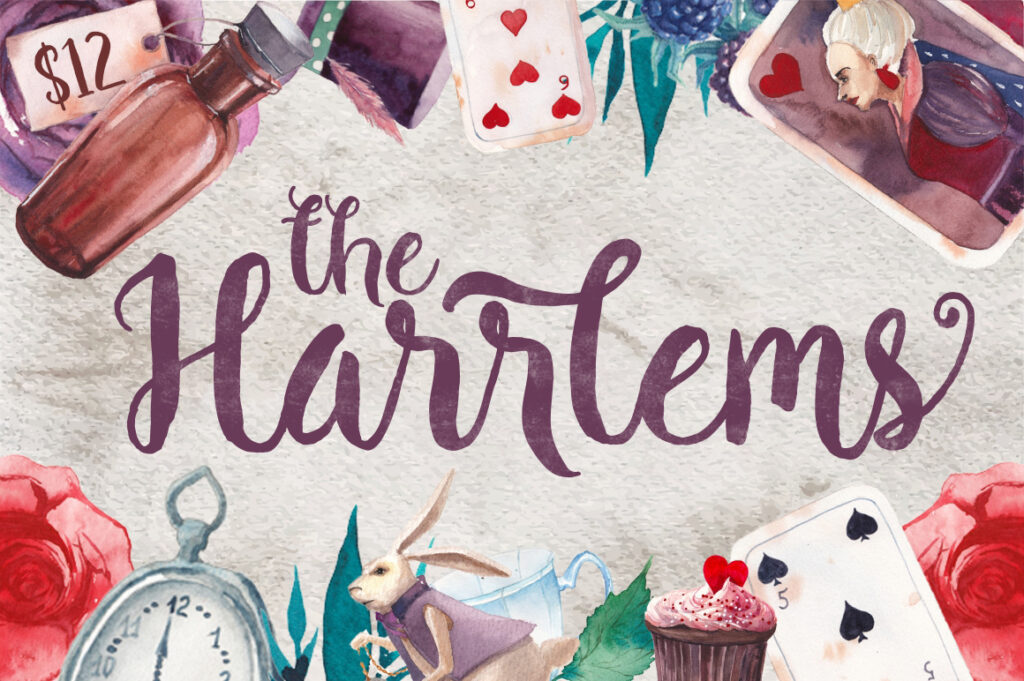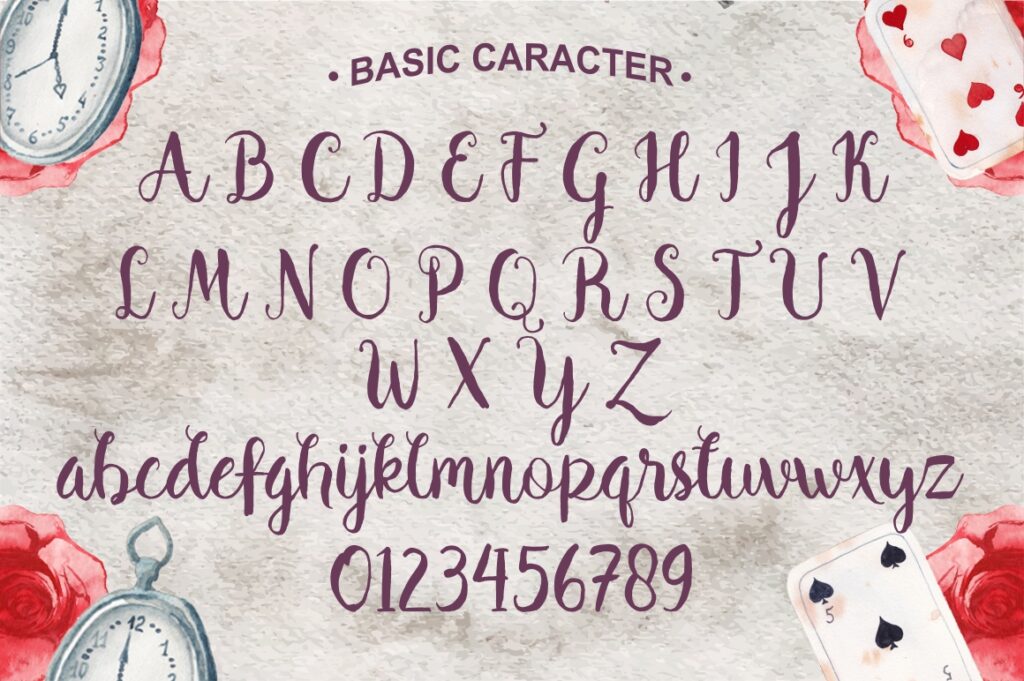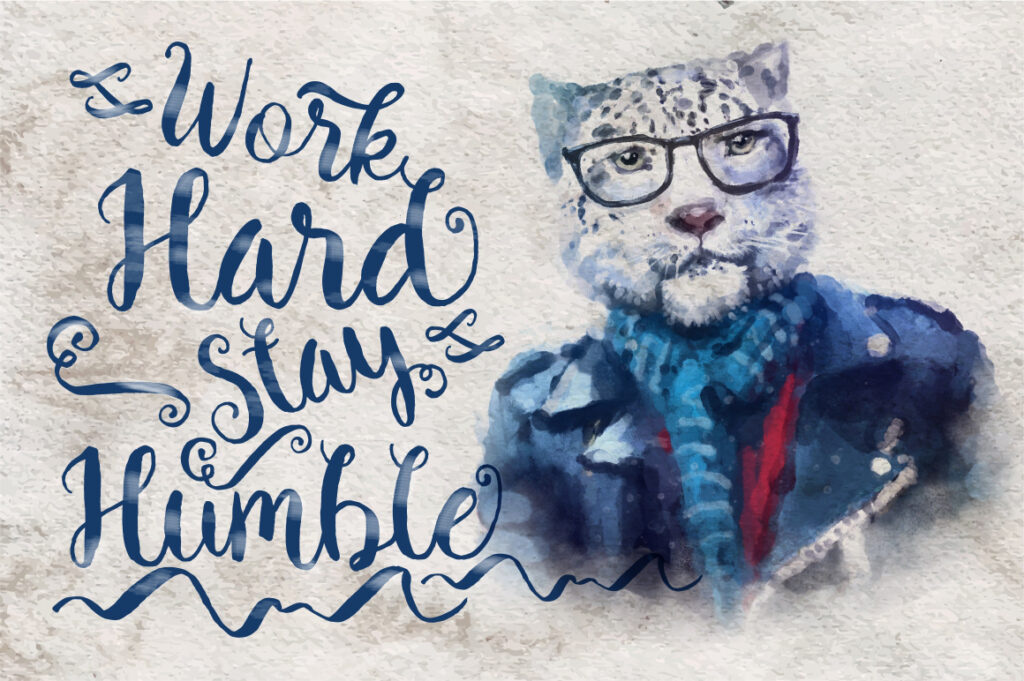
Free Harrlems Font
Harrlems was created using a real brush pen, giving it a beautiful, ‘messy’ texture that perfectly mimics natural handwriting. It’s ideal for designs that require a romantic, handmade look, such as:
• Wedding invitations and greeting cards
• Boutique logos and labels
• High-impact social media quotes
This pack includes Remires typeface, a vintage style clean font perfect for heading or body text to perfectly anchor the expressive script of Harrlems.
Additionally, this deal offers a ready-to-use ornament pack as a bonus. These decorative elements are yours to instantly enhance your designs.
• Brush Pen Aesthetics
• Standard Ligatures
• Stylistic Sets (01 & 02)
Harrlem font preview
Harrlem font alphabet
Harrlem font designs